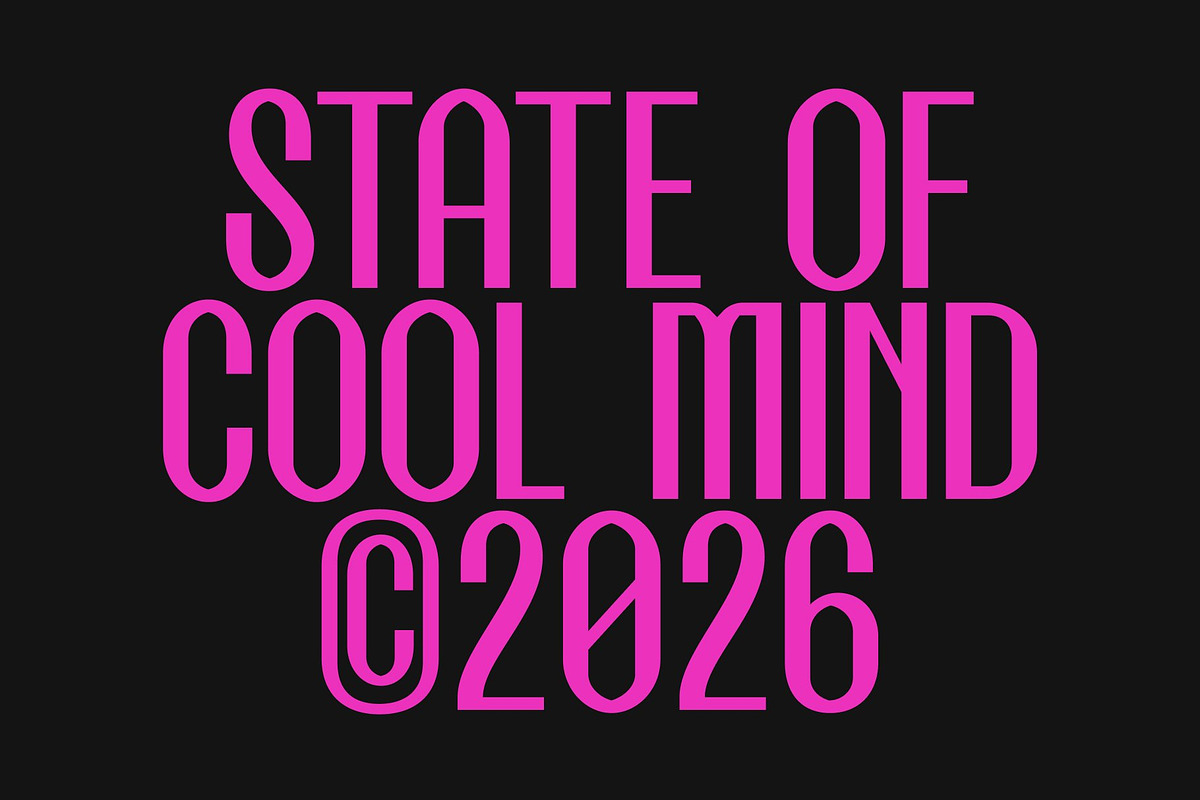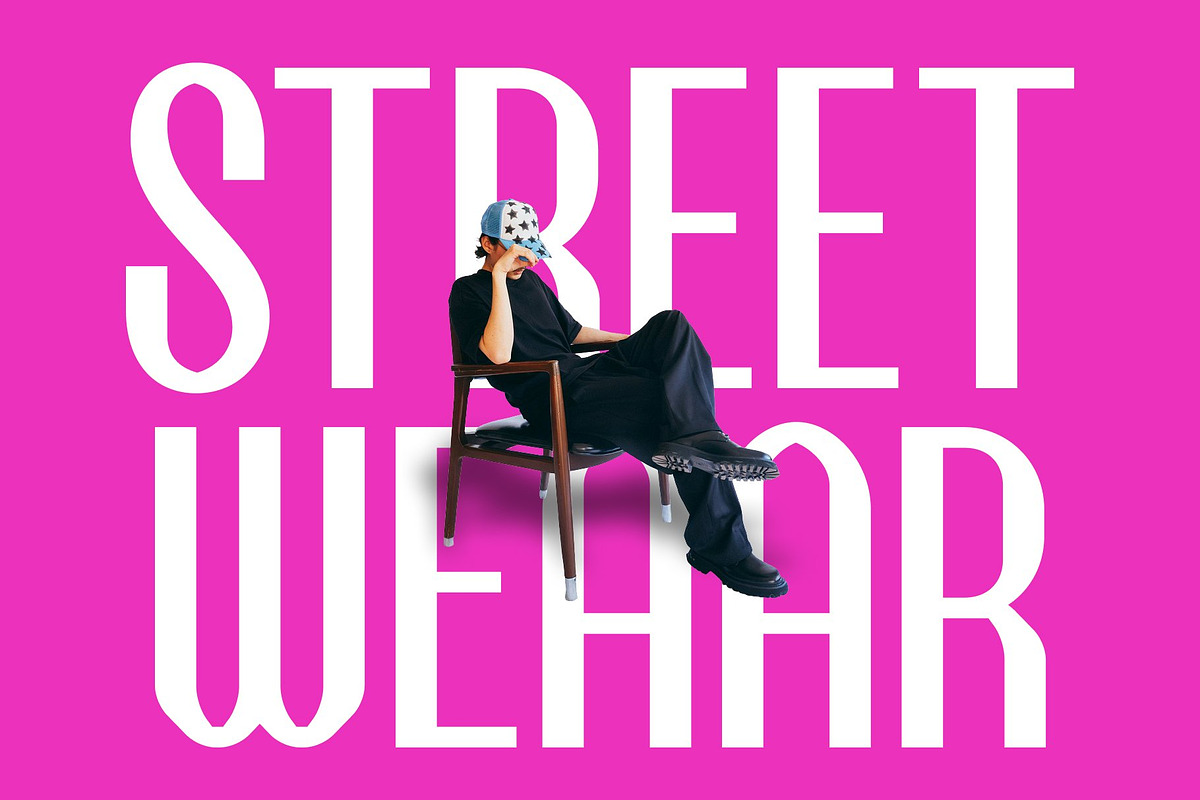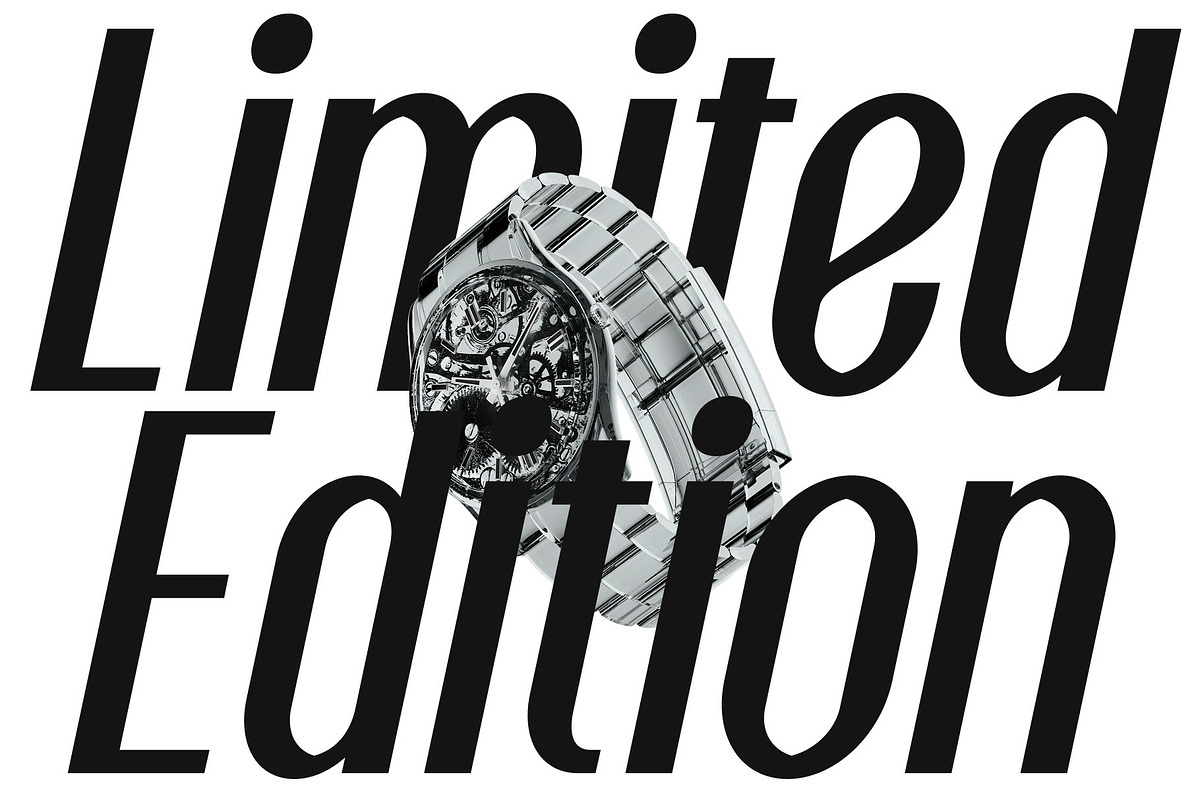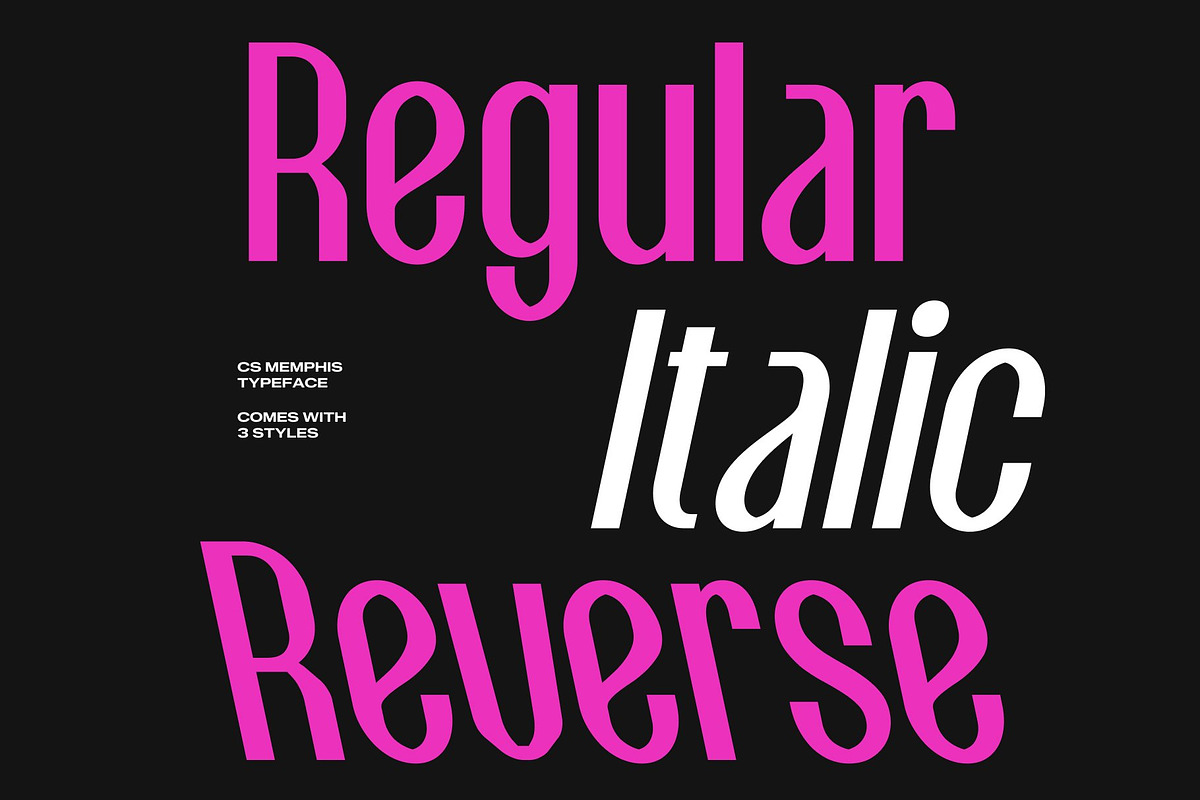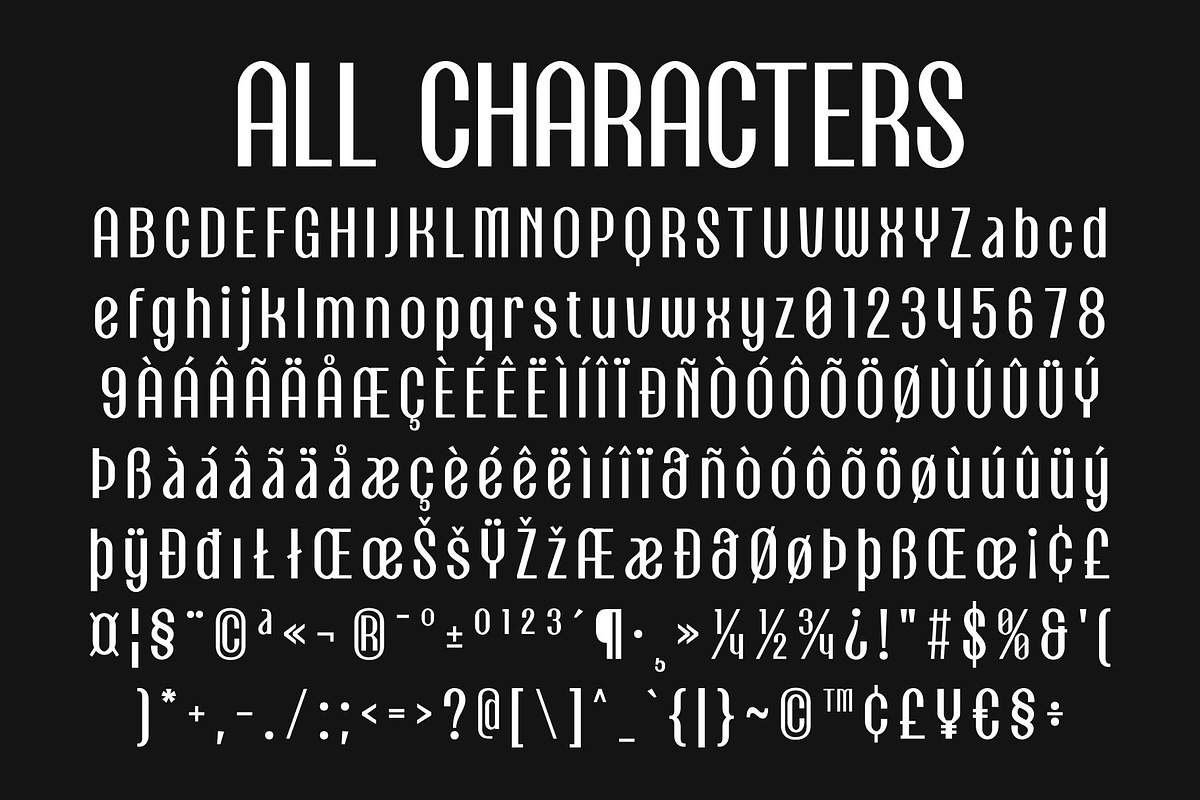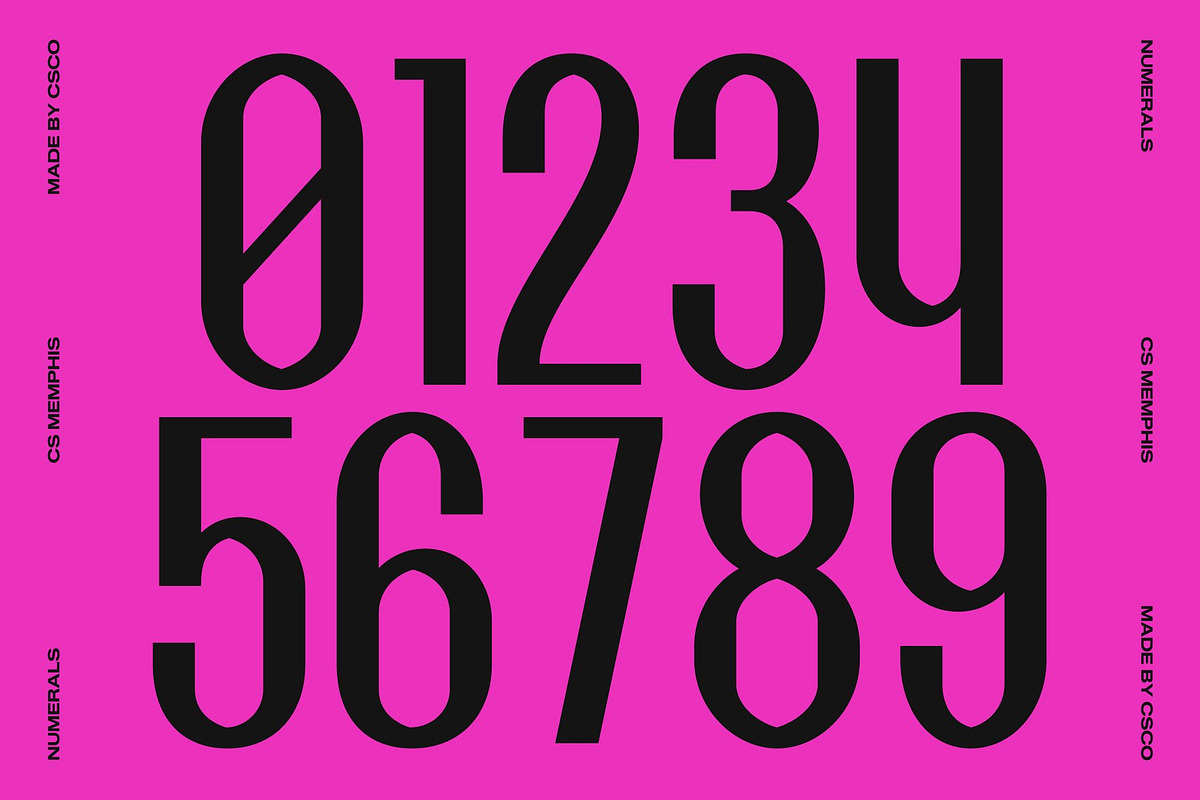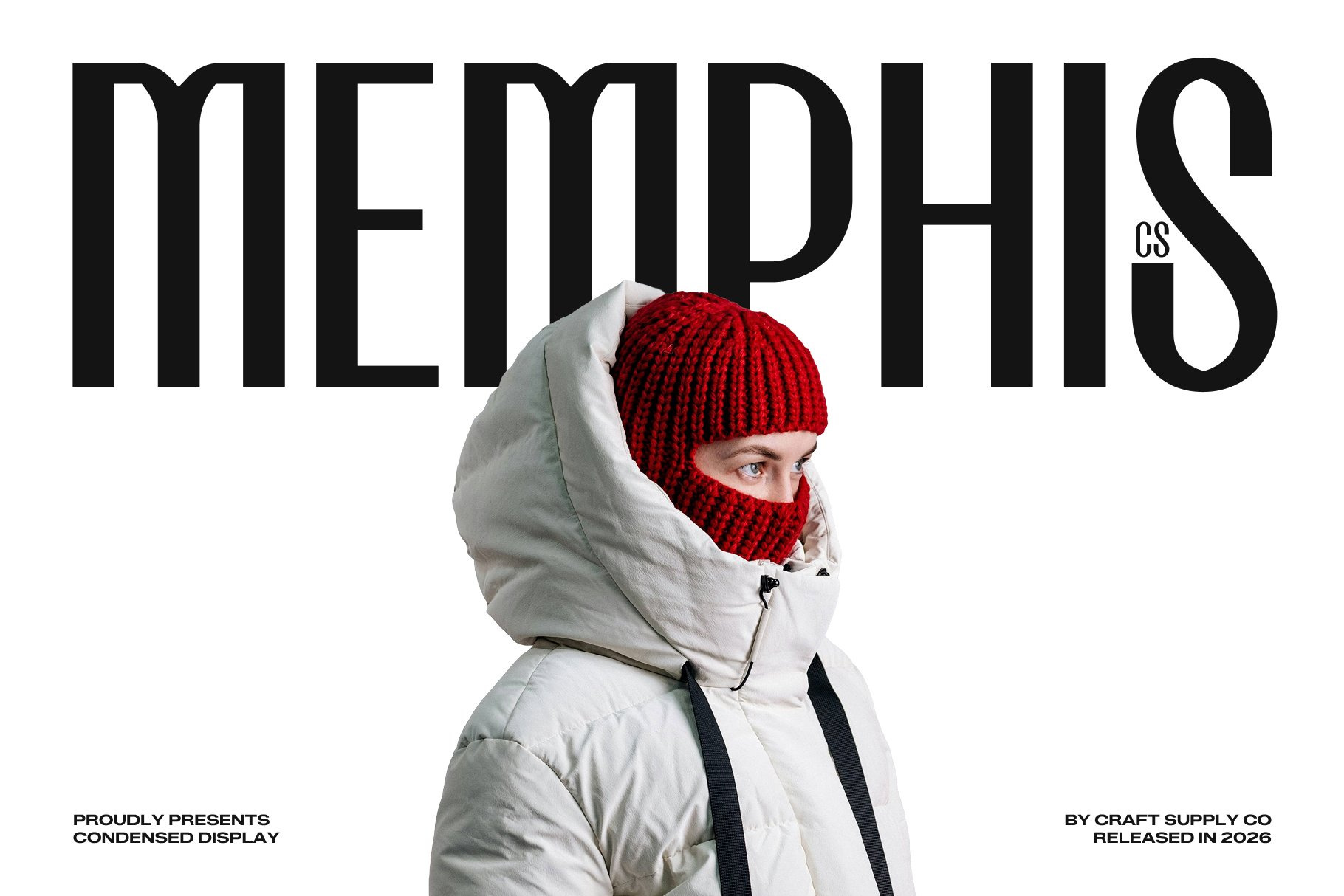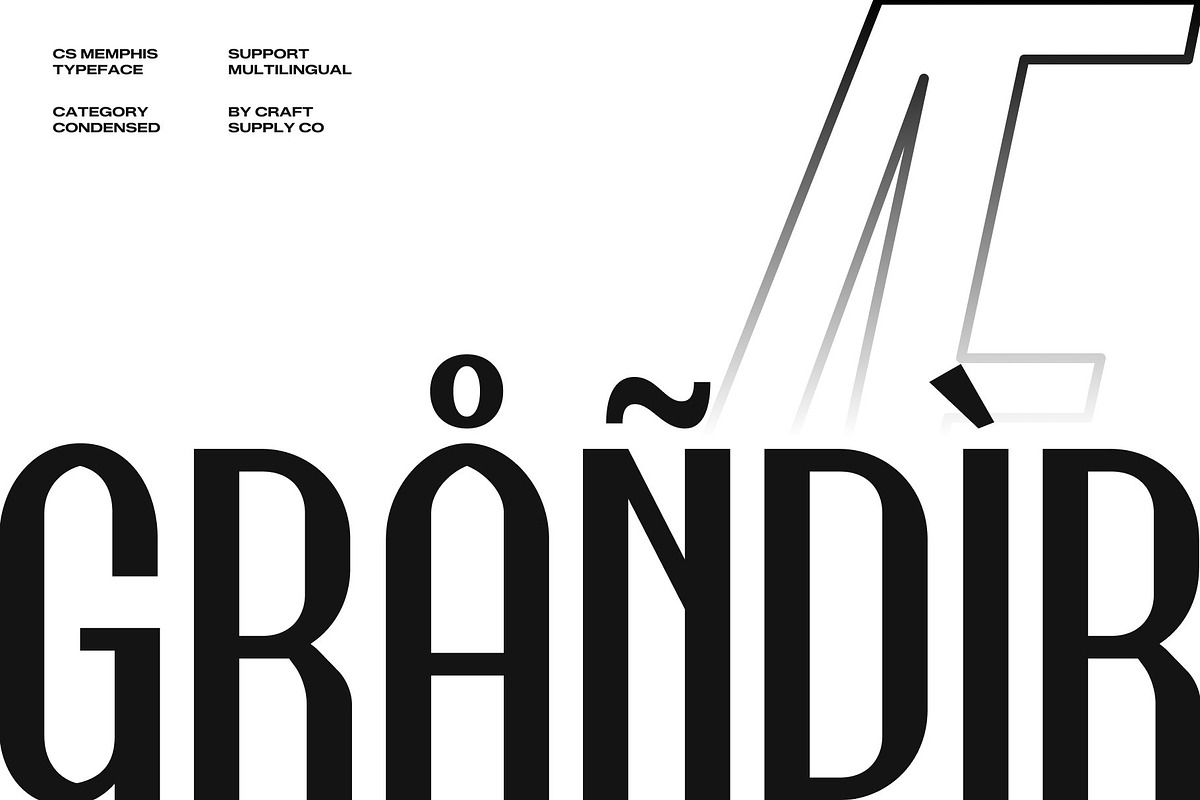
CS Memphis – Condensed Font
CS Memphis – Condensed Display Font with Fresh Modern Energy
Condensed Display Font with Contemporary Appeal This is a condensed display font designed to bring a fresh and modern voice to bold typography. With streamlined proportions and a confident structure, this typeface creates strong visual impact while maintaining clarity and balance. It is crafted for designers who want headlines that feel current, stylish, and instantly eye-catching.
Built for Compact and Impactful Layouts The condensed design allows text to fit efficiently into tight spaces without sacrificing readability. Each letterform is carefully shaped to appear tall, clean, and highly legible, making this font perfect for dense compositions and large titles. This efficient structure ensures your message stays clear and organized across any layout.
Clean Shapes with Modern Personality This font features smooth lines and balanced forms that give it a fresh and versatile character. The modern simplicity allows it to adapt easily to minimal layouts or bold graphic compositions, making it a flexible choice for a wide range of creative styles.
Perfect for Headlines, Posters, and Branding From impactful posters and editorial headlines to branding and digital campaigns, this font delivers a reliable and contemporary typographic solution. Its condensed proportions and fresh design ensure your typography stands out with clarity, energy, and modern confidence.
CS Memphis Regular
CS Memphis Italic
CS Memphis Reverse Italic